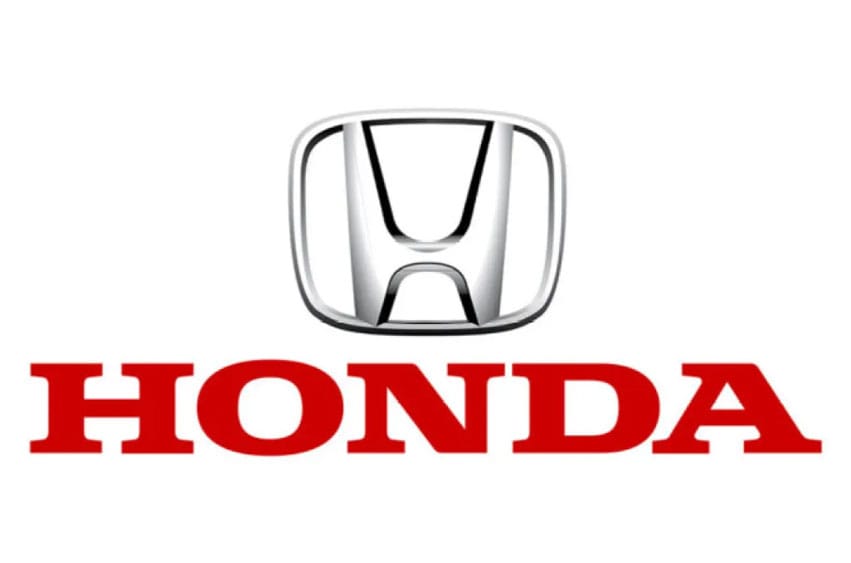
Honda Font remains at the top of car manufacturers, known for producing top-selling and highest-quality automobiles. When it comes to motorcycles, this company stands head and shoulders above its competition, being used in almost every country across the globe. Furthermore, their technologies such as artificial intelligence are constantly being improved upon – they even build aircrafts, robots and boats engines! Honda continues to push boundaries.
Honda Logo Font stands alone as one of the few fonts that hasn’t changed significantly since it first debuted. The “H” symbol, which resembles an armchair from days past, refers to their intention of designing their first motorbike with an ergonomic seat. Furthermore, its wordmark offers an industrial look perfect for branding car brand names or film titles about fighting.